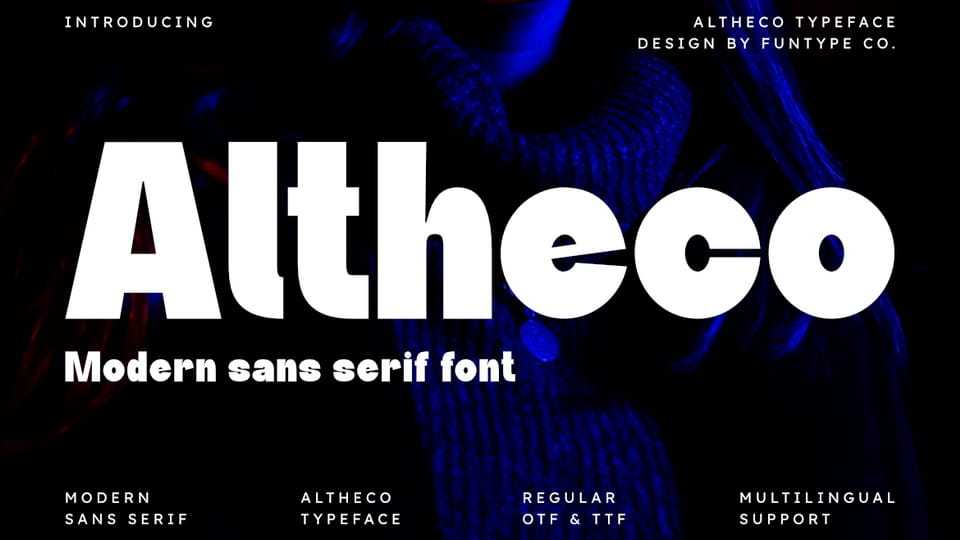
Download Altheco font, a bold and elegant sans serif typeface designed for impactful typography with its refined structure and clean geometric lines.
Designer: Funtype Co.